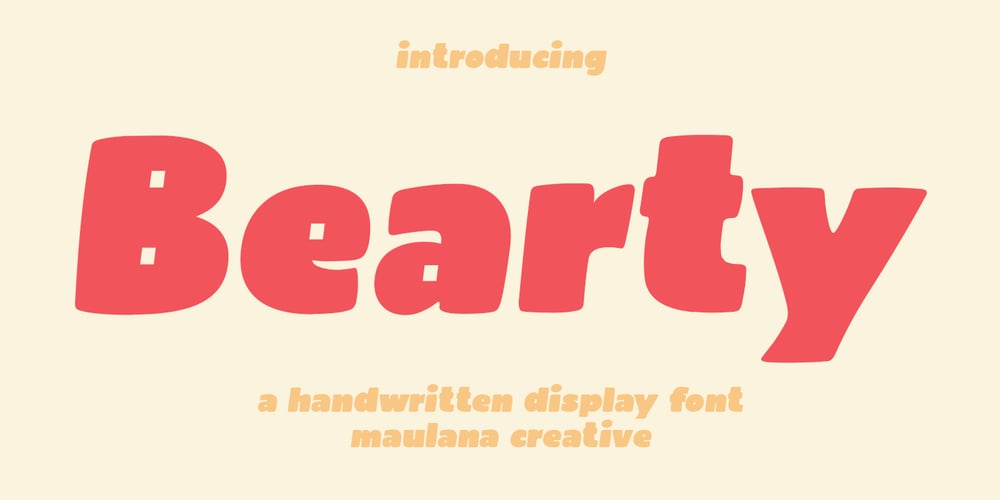
MC Bearty Font Family was designed by Gilang Maulana and published by Maulana Creative. MC Bearty contains 1 styles and family package options. Bearty is a casual handwritten font. With slanted heavy stroke, fun character with a bit of ligatures and alternates. To give you an extra creative work. Bearty font support multilingual more than 100+ language. This font is good for logo design, Social media, Movie Titles, Books Titles, a short text even a long text letter and good for your secondary text font with script or serif. Make a stunning work with Bearty font. Cheers, Maulana Creative